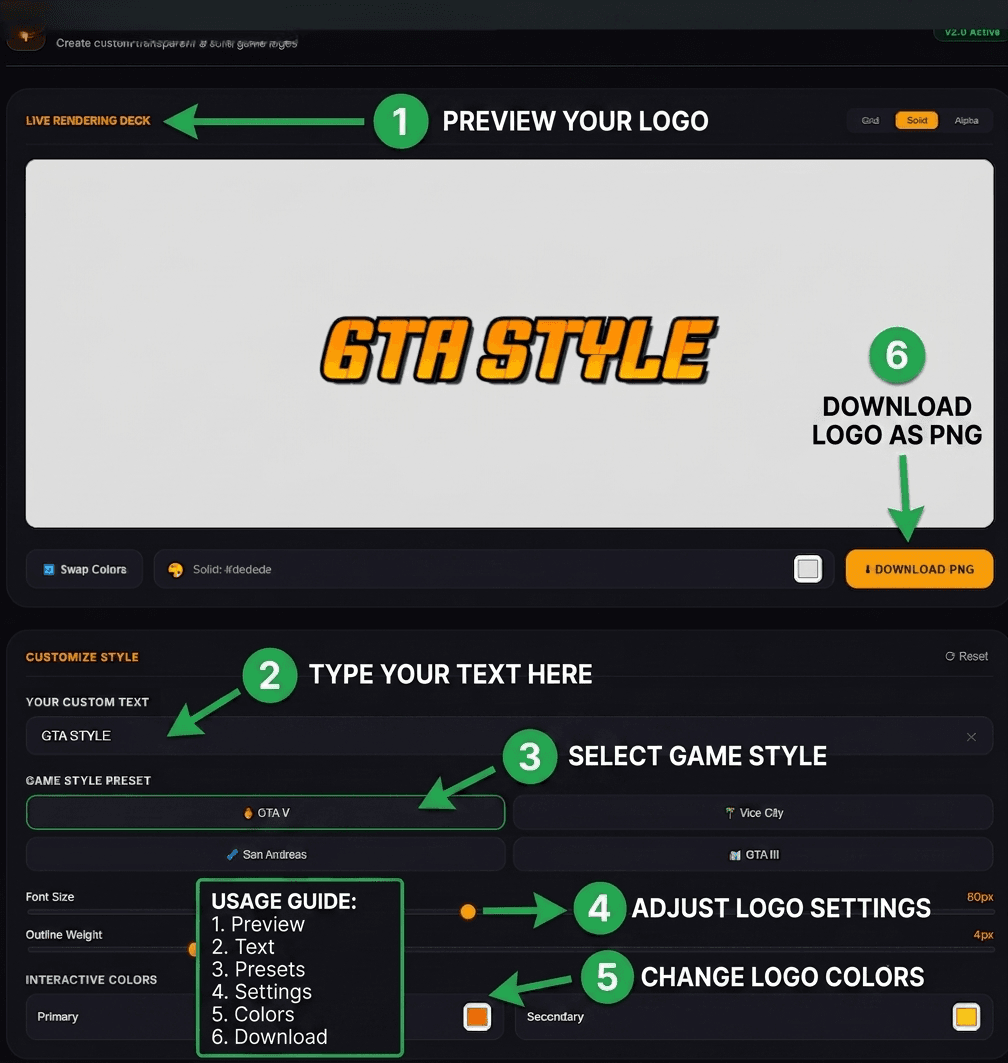
GTA Font Generator
Create GTA-inspired title graphics with named color palettes, outlines and PNG/SVG export.
Ghostern’s GTA Font Generator creates GTA-inspired text graphics directly in your browser. Choose from GTA V, Vice City, San Andreas, and GTA III style presets, then customize the font size, outline, colors, shadow, background, and export format.
The generator is designed for creating eye-catching text for gaming thumbnails, Discord banners, Twitch graphics, social posts, fan art, video edits, and other GTA-inspired creative projects. It includes one-click color palettes, transparent output, and both PNG and SVG export.
The generator includes four starting points based on recognizable GTA-era visual directions. These presets are intended as GTA-inspired styles, not official Rockstar Games logo reproductions.
GTA V โ a bold, condensed display treatment with a gold-to-orange color combination, strong outline, depth, and an optional R-link treatment. This preset works especially well for gaming thumbnails, titles, roleplay content, and modern GTA-inspired graphics.
Vice City โ a flowing display style using pink and magenta tones for an unmistakable neon, 1980s-inspired aesthetic. It is a natural choice for synthwave, retro, sunset, and Miami-inspired graphics.
San Andreas โ a darker, gothic-inspired treatment built around green shades, a strong outline, and heavier visual weight. It suits street-themed artwork, roleplay graphics, fan projects, and gritty gaming designs.
GTA III โ a monochrome treatment using white, grey, and silver-like tones for a restrained, industrial appearance. It works well for darker compositions and minimalist gaming graphics.
The GTA Font Generator gives you direct control over the elements that create the finished logo-style appearance.
Outline / Stroke adds a visible border around the lettering. Use a smaller value for a cleaner look or increase the width when the text needs stronger separation from the background.
Drop Shadow adds a darker offset layer behind the text to create depth and visual separation.
Gradient Fill blends your primary and secondary colors inside the lettering. For example, a gold-to-orange combination can create a warm GTA V-inspired appearance.
The GTA V preset includes an optional R-link treatment designed as a distinctive custom visual effect. Rather than depending on an external proprietary logo font, the treatment is generated within the browser as part of the tool’s own rendering system.
This gives the GTA V preset an additional visual option while keeping the generator independent of third-party font-file hosting.